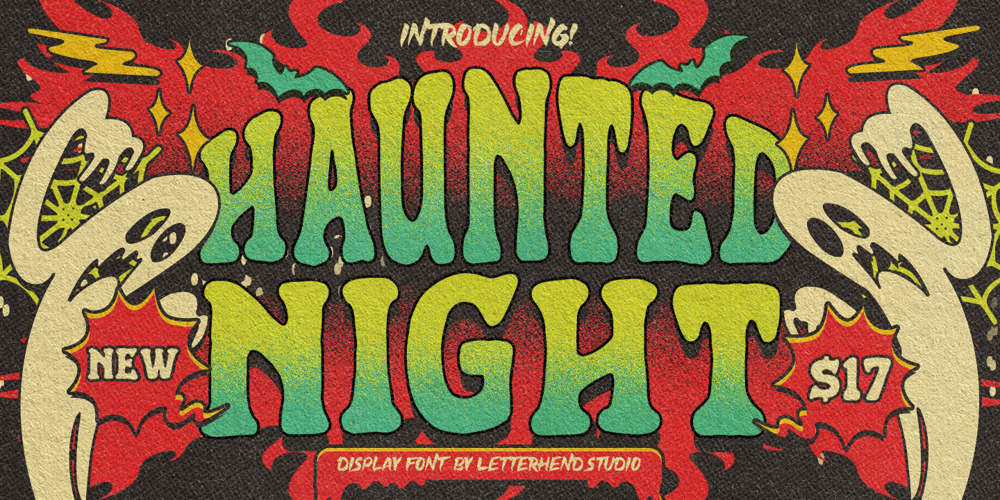
Haunted Night Font Family was designed by Hendry Juanda and published by Letterhend. Haunted Night contains 1 styles and family package options. Haunted Night is a bold display font with classic letterform. This font perfectly made to be applied especially in logo, and the other various formal forms such as invitations, labels, logos, magazines, books, greeting / wedding cards, packaging, fashion, make up, stationery, novels, labels or any type of advertising purpose.Features : Uppercase & lowercase Numbers and punctuation Alternates & Ligatures Multilingual Support PUA encoded